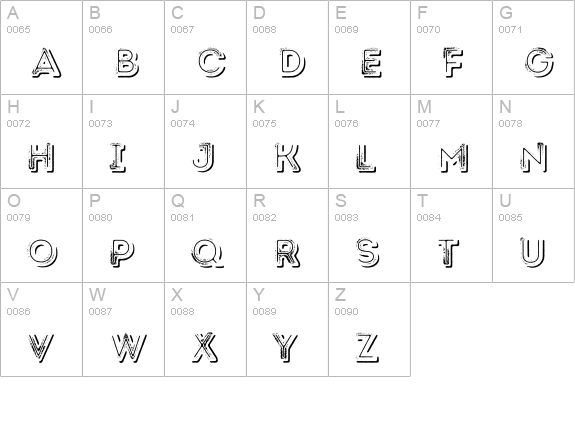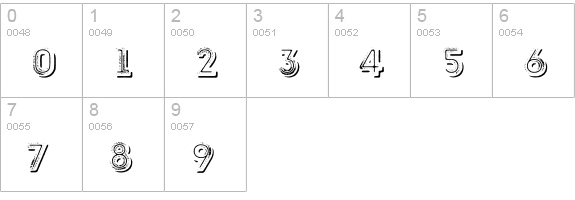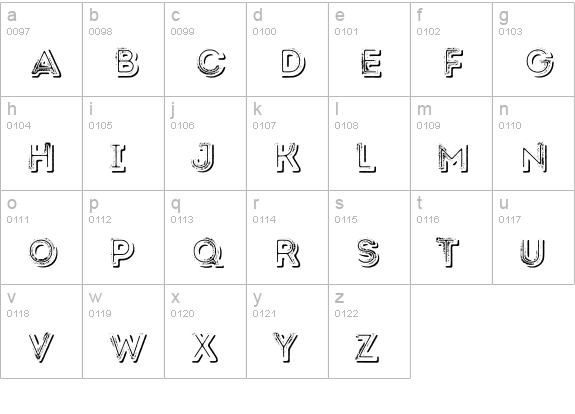
Intro Rust G Fill 2 Line Shade Font Details
Intro Rust G Fill 2 Line Shade font is a stunning and eye-catching display typeface that exudes a sense of modernity and sophistication. With its unique design featuring intricate shading and bold lines, this font is sure to make a strong visual impact on any project it is used in. The combination of fill and outline elements adds depth and dimension to the text, making it stand out from the crowd. The best part about Intro Rust G Fill 2 Line Shade font is that it is completely free to download at FontsMarket.com. This means you can easily access this premium quality font without having to spend a penny. Whether you are working on a branding project, poster design, or any other creative endeavor, this font will elevate your work to the next level with its distinctive style and flair. Don't miss out on the opportunity to enhance your designs with the captivating Intro Rust G Fill 2 Line Shade font. Download it for free today and see the difference it can make in your projects!